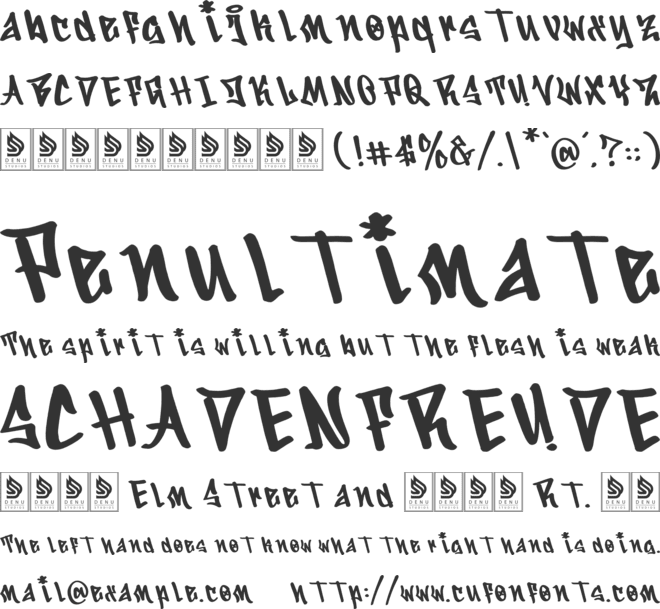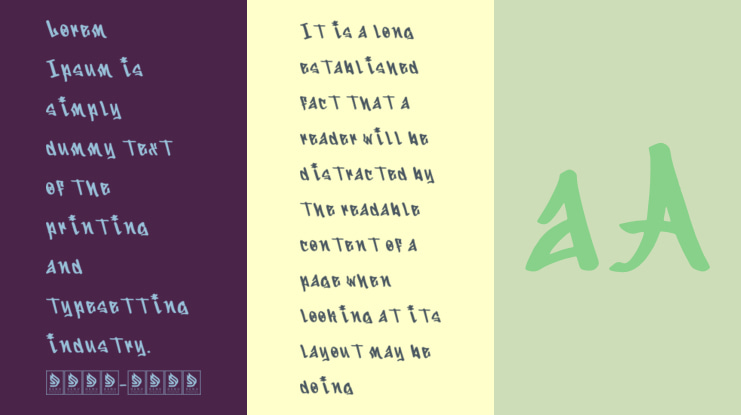
Asphalt Slasher | Graffiti Font product packaging, mugs, quotes, posters, shopping bags, t-shirts, book covers, name card, invitation cards, greeting cards, label, photography, watermark, special events, and all your other lovely projects that need a Graffiti taste.